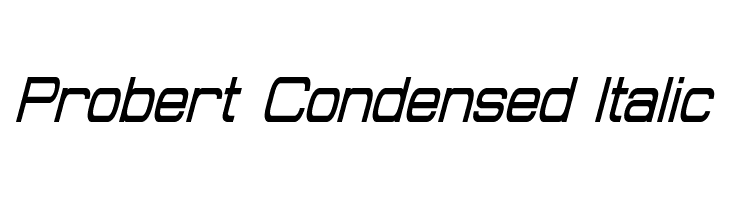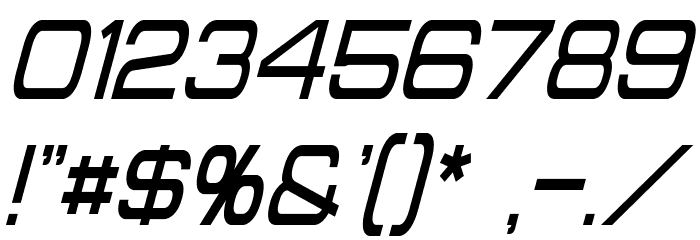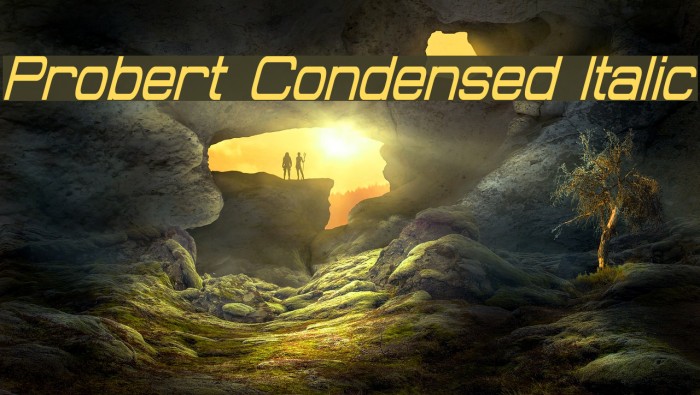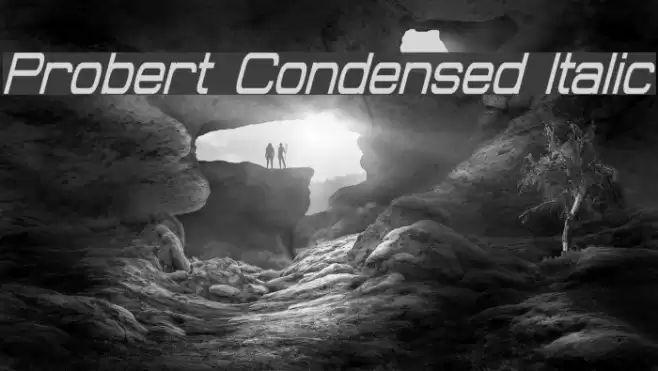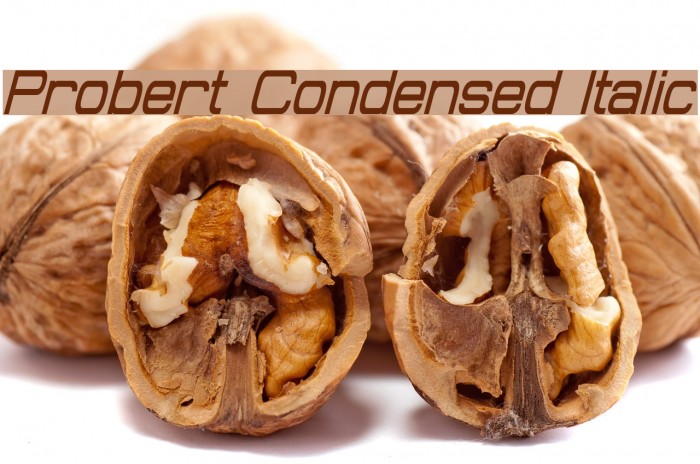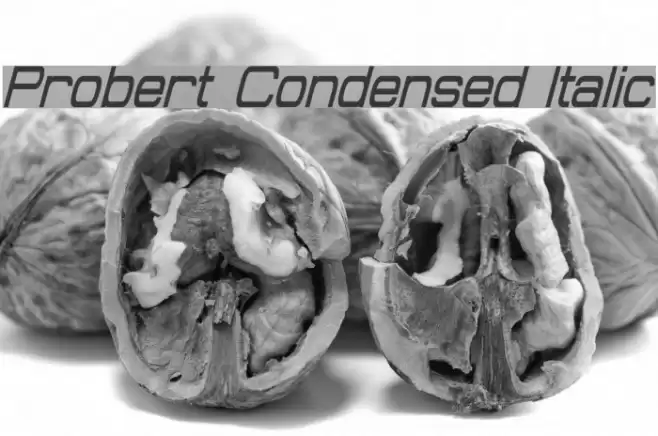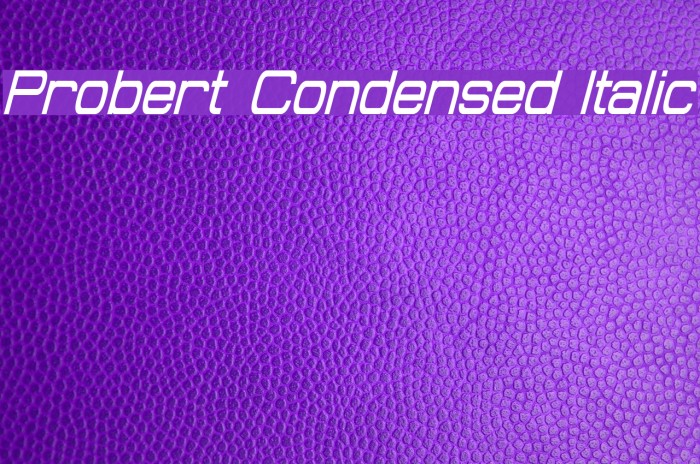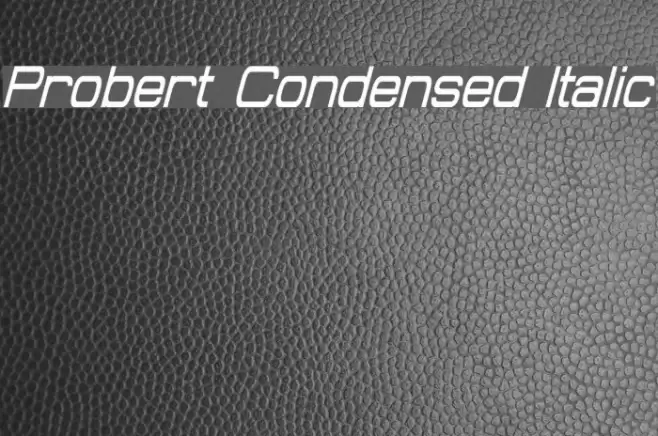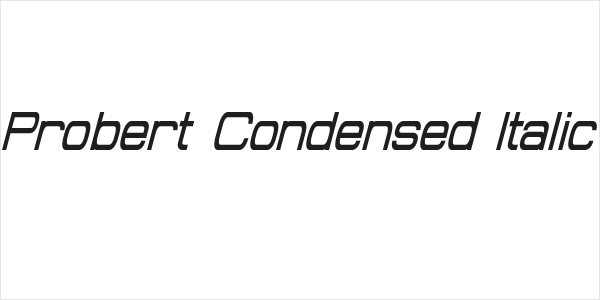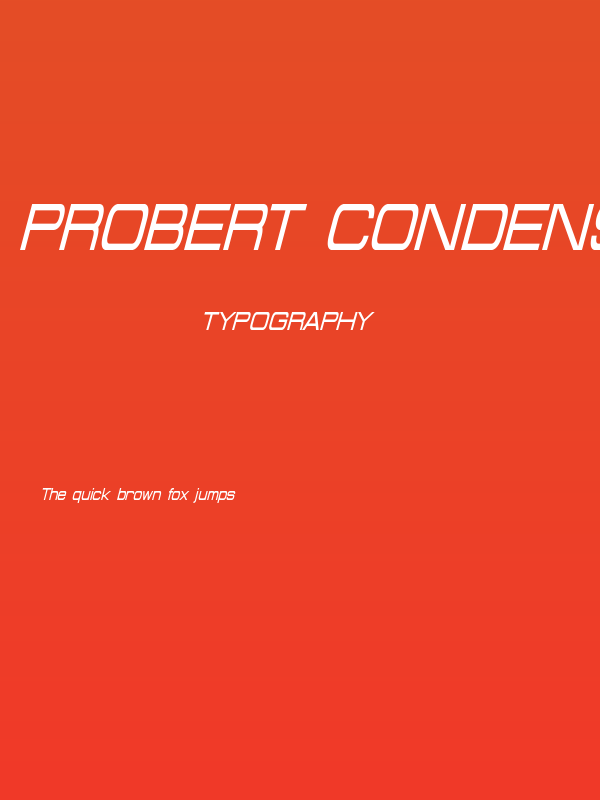
Probert Condensed Italic Font
Probert Condensed Italic Description
This font features a sleek, italicized design with a condensed structure, giving it a modern and dynamic appearance. The characters are slightly slanted, enhancing the sense of motion and fluidity. The uppercase and lowercase letters maintain a consistent style, with clean lines and minimal embellishments. The numerals and special characters are designed to match the overall aesthetic, ensuring uniformity across all text. The font's condensed width allows for efficient use of space, making it ideal for headlines and titles where impact is essential.
| Proposed Projects | Ideal for modern branding, dynamic headlines, sports-related designs, and tech-oriented projects. |